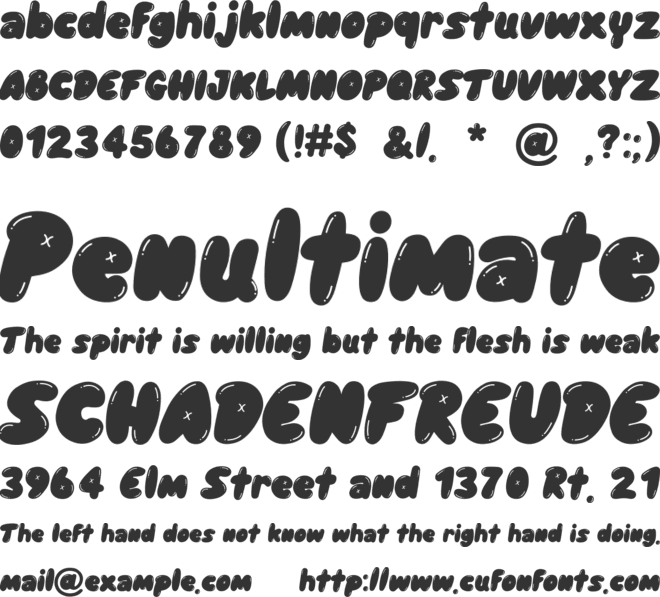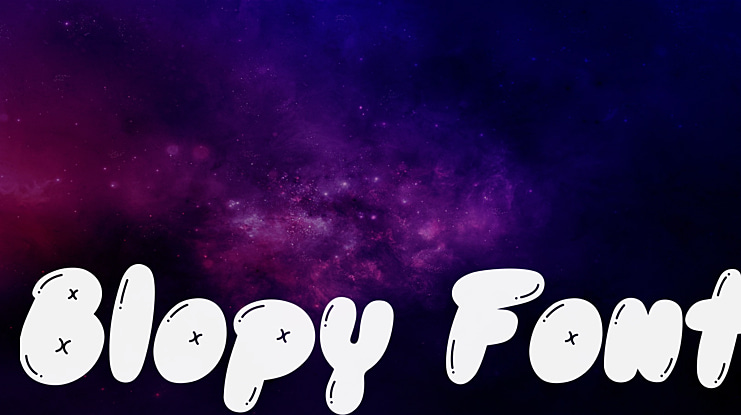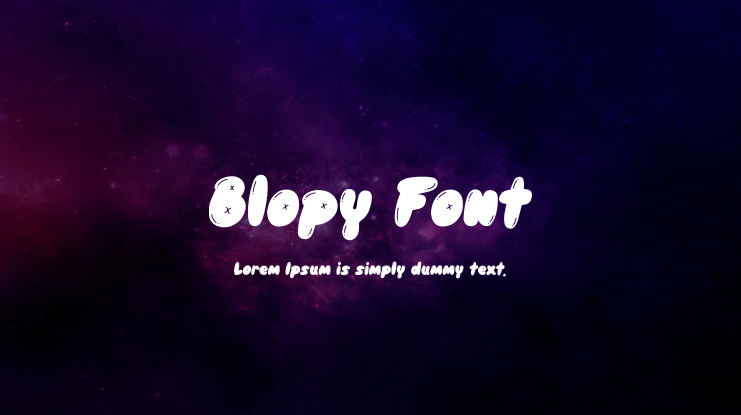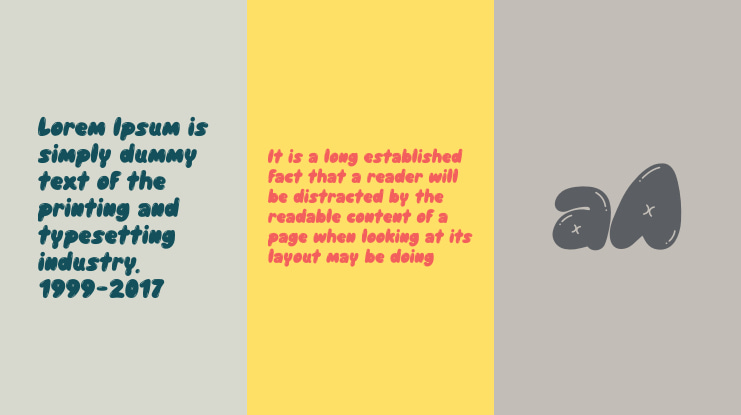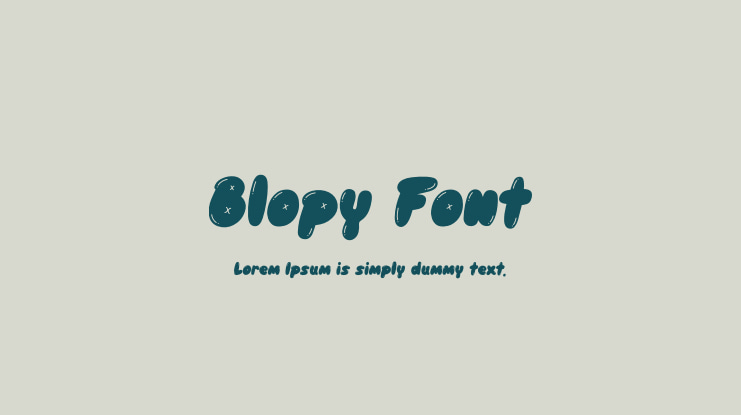
Blopy Font
Blopy - Bubble Font is another retro modern font with playful look and feel. This font would be perfect for display and large graphic. Use this font for merchandise, posters, tshirt, website, and many more projects!.